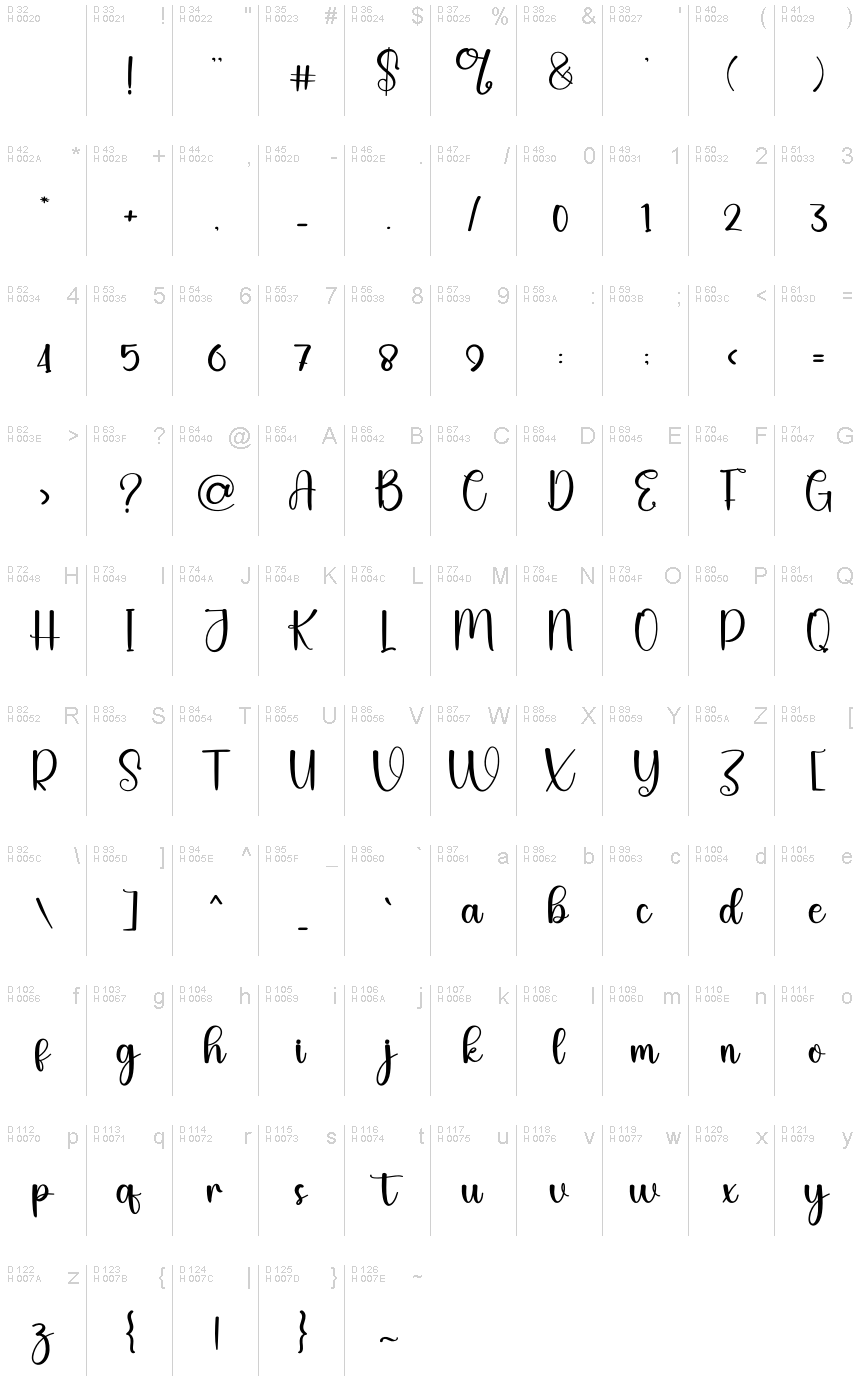
Testimony
Testimony font by Inermedia Studio captivates with its handwritten charm and fluid elegance. This free font offers a dynamic and personal touch, making it perfect for creative projects that need a humanized feel. Its sweeping strokes and organic flow lend authenticity, ideal for branding, invitations, or social media graphics.
The expanded script style conveys both warmth and sophistication, ensuring your message stands out with character and readability. Download the Testimony font to bring a personalized flair to your designs effortlessly.
Whether crafting logos or enhancing digital artwork, this font adapts beautifully to diverse applications. Embrace the distinctive allure of Testimony for memorable visual storytelling today!